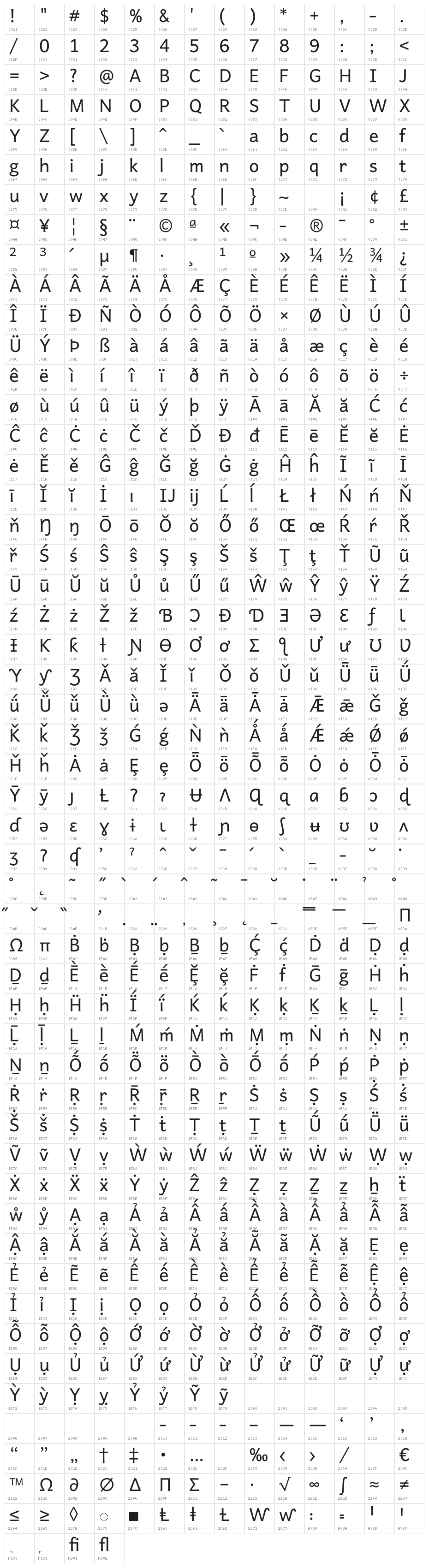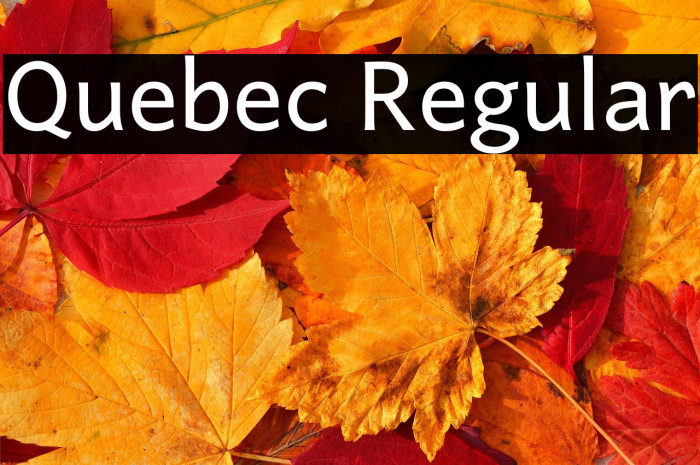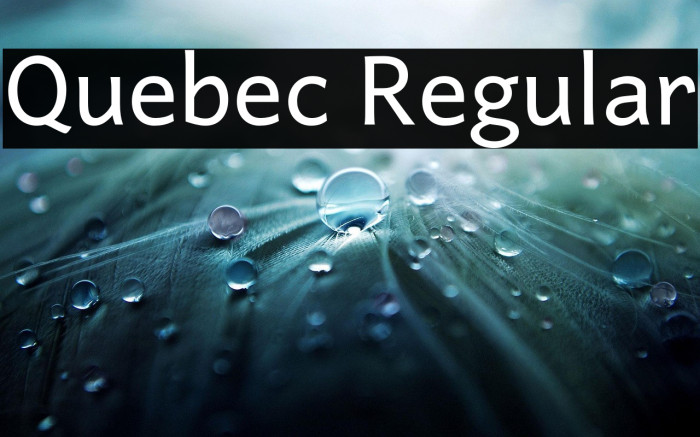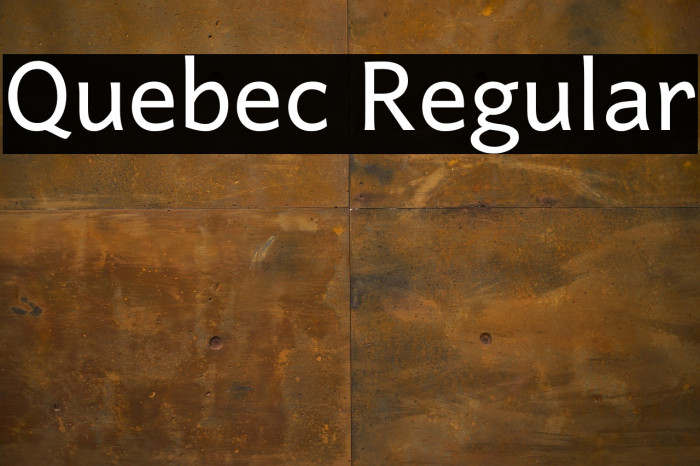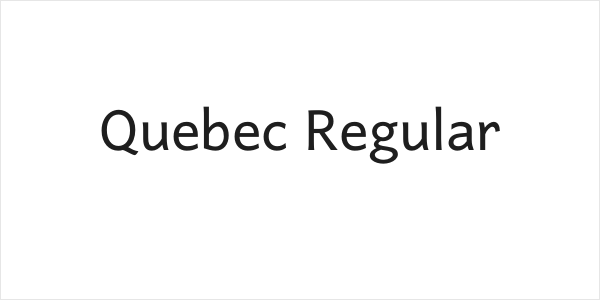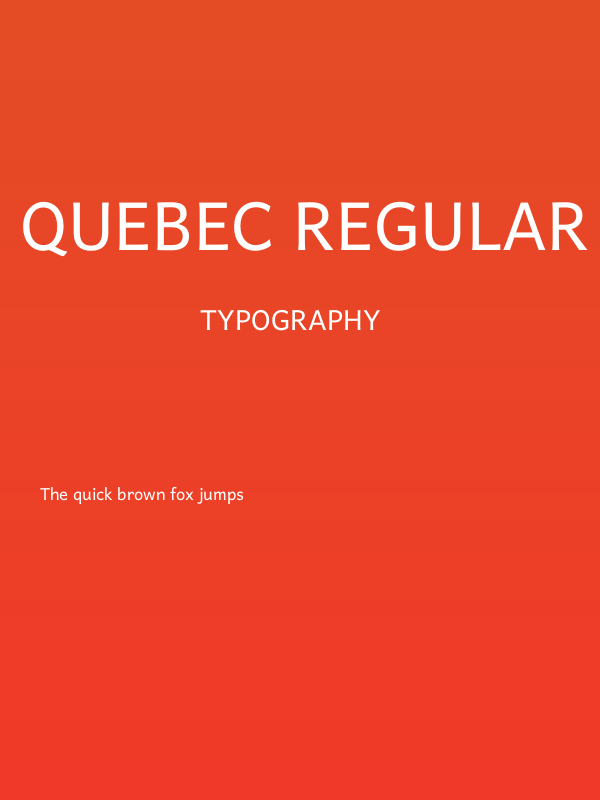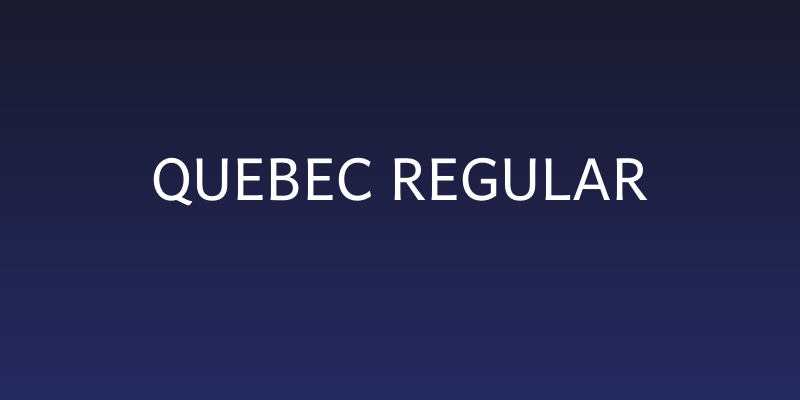
Quebec Regular Font
Quebec Regular Description
This font presents a clean and modern sans-serif style, characterized by its simplicity and readability. The characters are well-proportioned with a consistent stroke width, offering a balanced and harmonious appearance. The uppercase and lowercase letters are distinct, with rounded edges that soften the overall look. The numerals are clear and straightforward, ensuring easy legibility. Special characters are neatly designed, maintaining the font's cohesive aesthetic. This font is versatile, suitable for both digital and print media, and can be used in a variety of contexts where clarity and modernity are desired.
| Proposed Projects | Ideal for web design, corporate branding, user interfaces, and editorial content. |